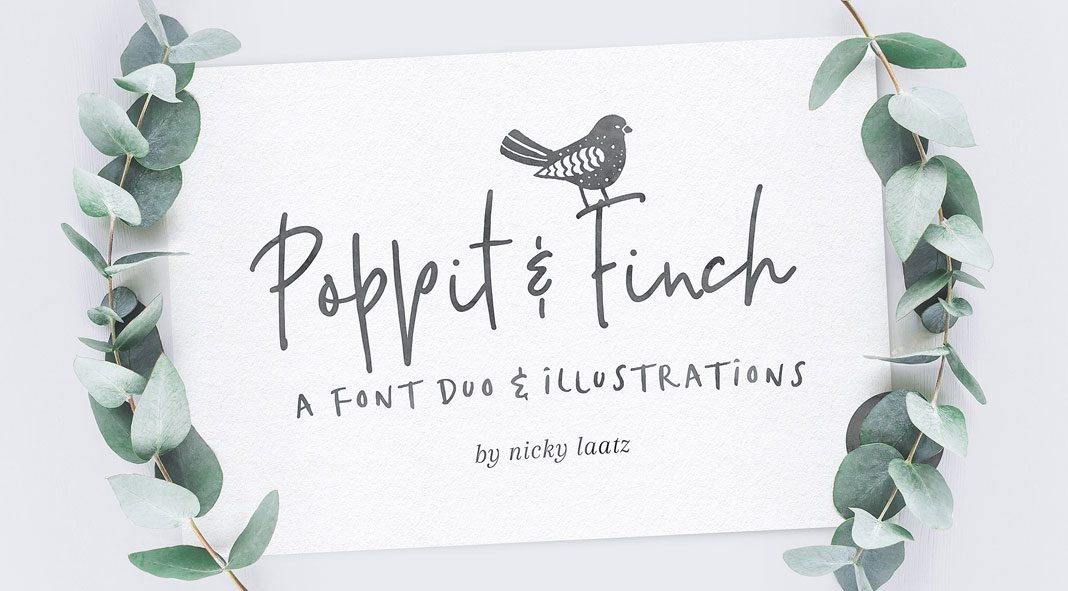
Poppit & Finch, a great set of two hand drawn typefaces plus additional illustrations and logos.
Nicky Laatz, a South African graphic and type designer recently moved to the beautiful countryside. Surrounded by green hills and adorable animals, she wanted to create something that reflects this beautiful environment. Poppit & Finch is a lovely hand drawn font duo with country-inspired vector illustrations and logo templates. The font duo consists of a script and a sans version. Both typefaces share a similar hand drawn style. The 130 illustrations and 47 logos perfectly match the same style. Thanks to the use of vector files, everything is fully editable using software such as Adobe Illustrator or Photoshop. You can get their latest versions from the Adobe Creative Cloud website, just check it out here.
Poppit & Finch is well suited for plenty of applications such as posters and greeting cards, invitations, custom logo designs, quotes, t-shirts, just to name a few. The possibilities seem endless. The typefaces are included in two formats (OTF, TTF). All illustrations and logo templates come as AI files as well as additional PNG and EPS files. For further information, just follow the link below.